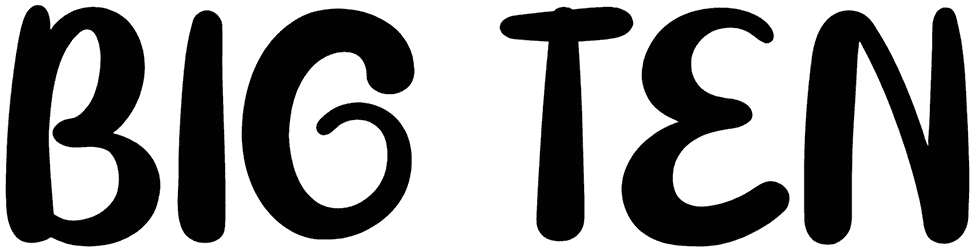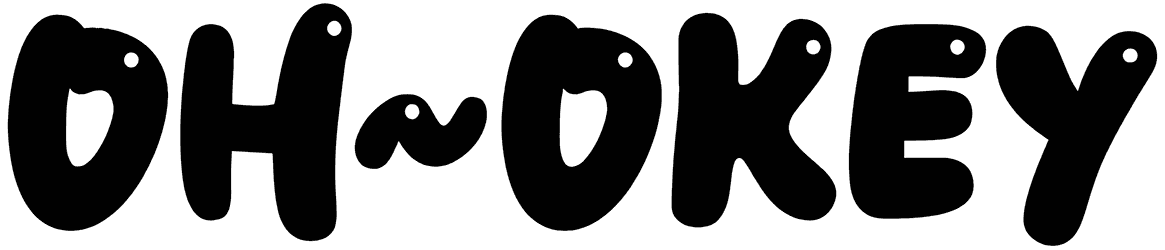
Dinosaur Font
Here we are again with a cartoon font, Dinosaur that carries a sense of jauntiness, clumsy, humor, playfulness, and dynamic. Although it doesn’t support lowercase letters, it is a versatile font, so it has various usages ranging from posters, banners, packaging, and greeting cards to flyers, restaurant menus, and event invitations.